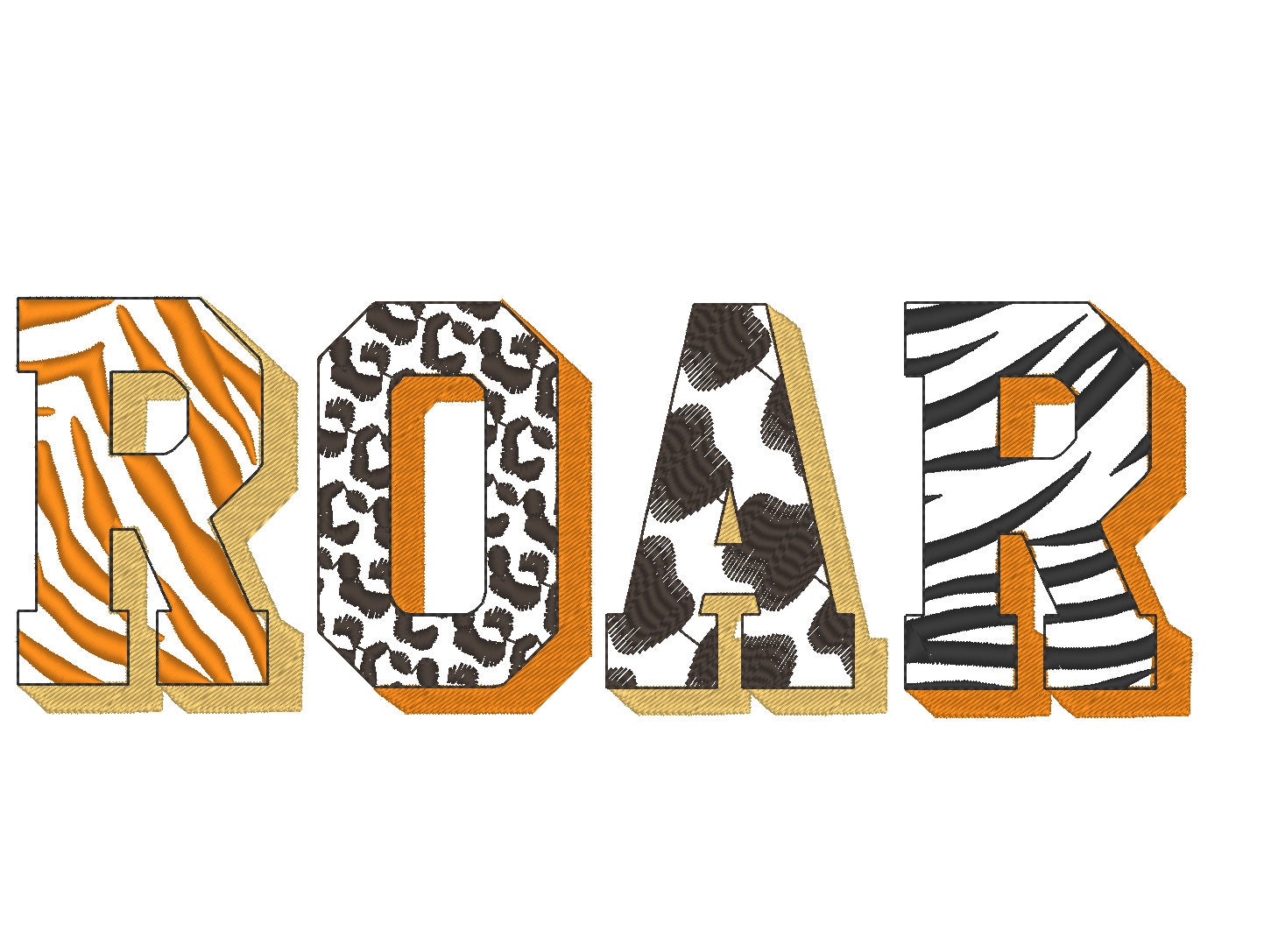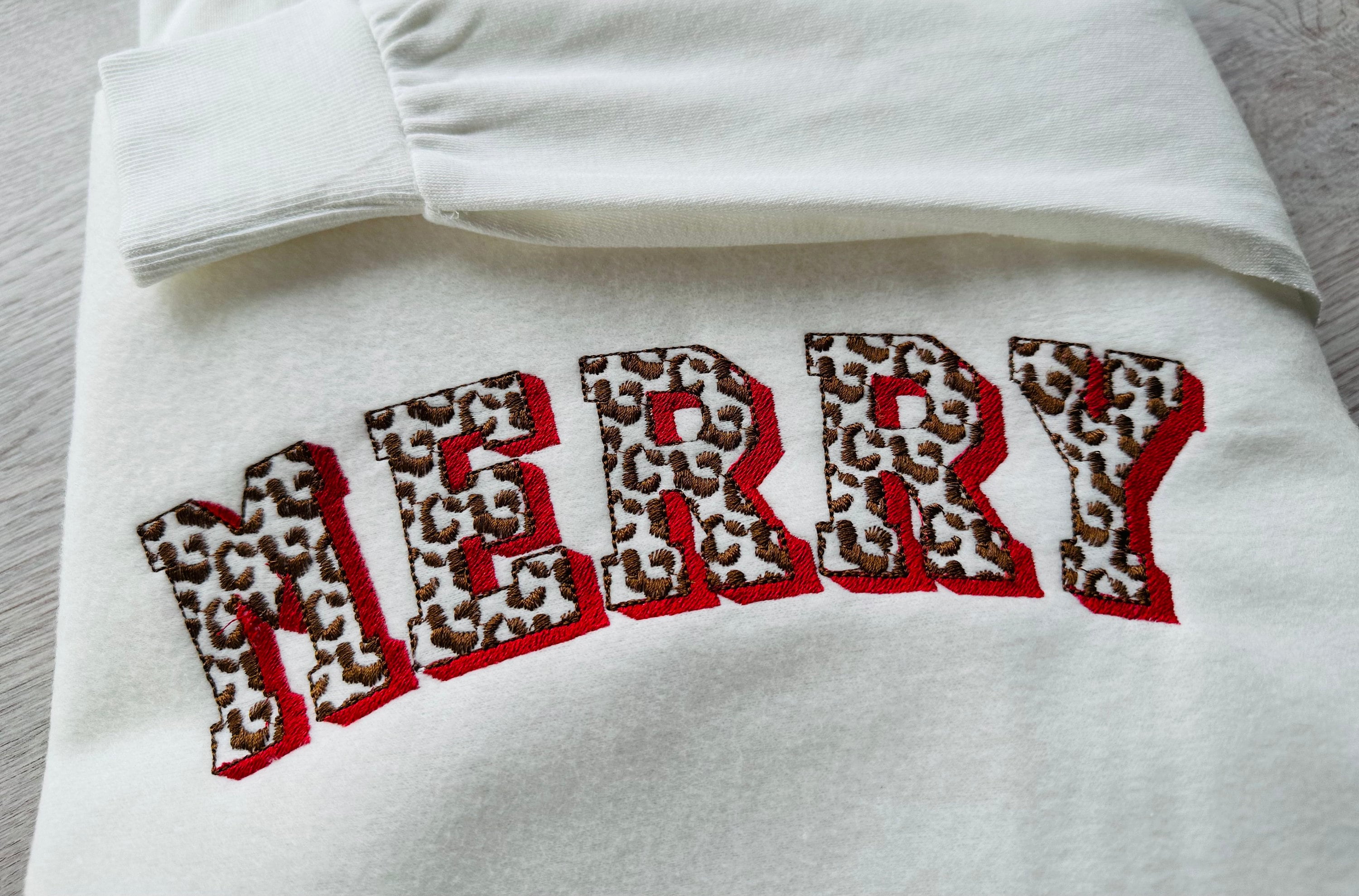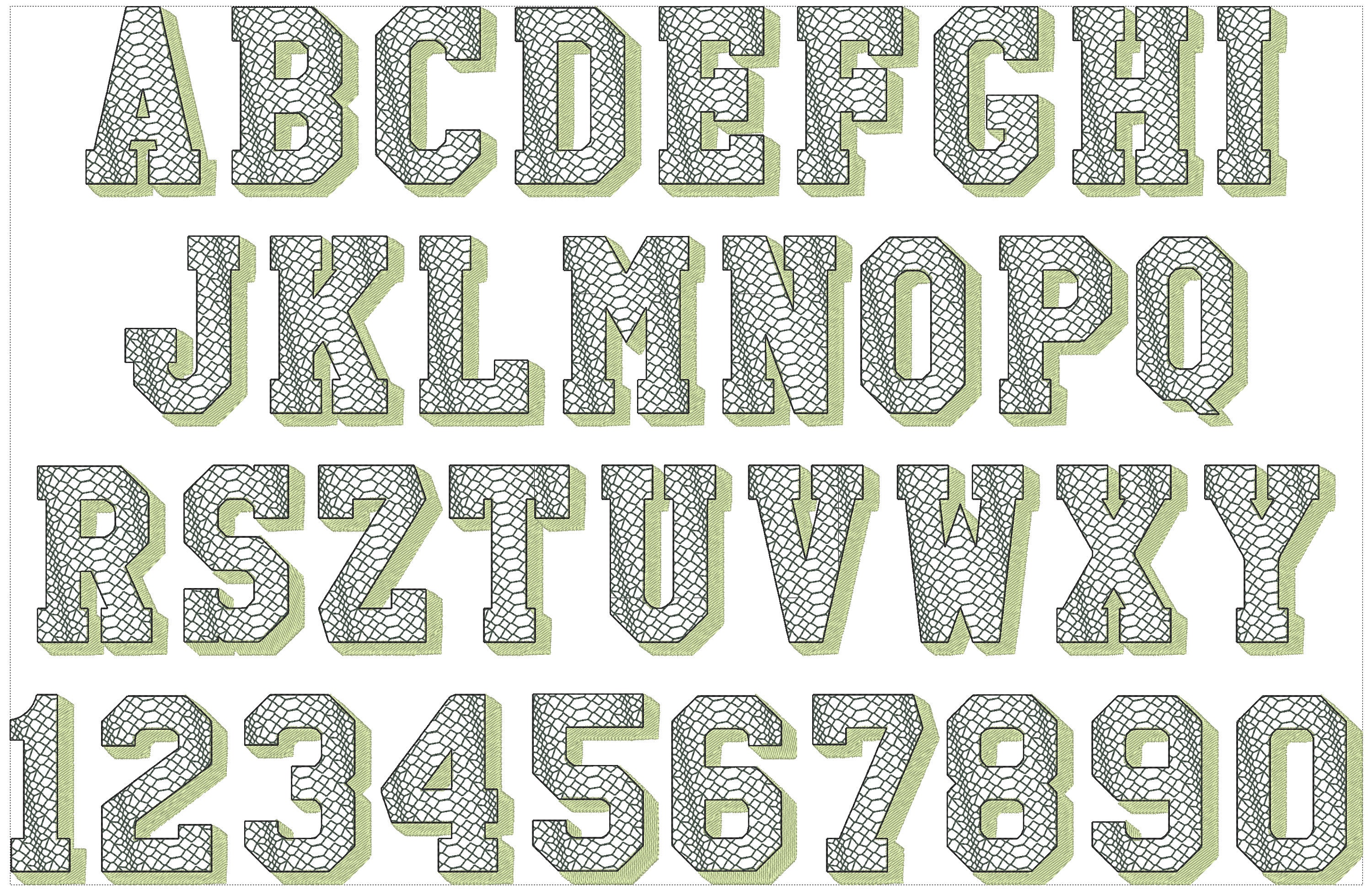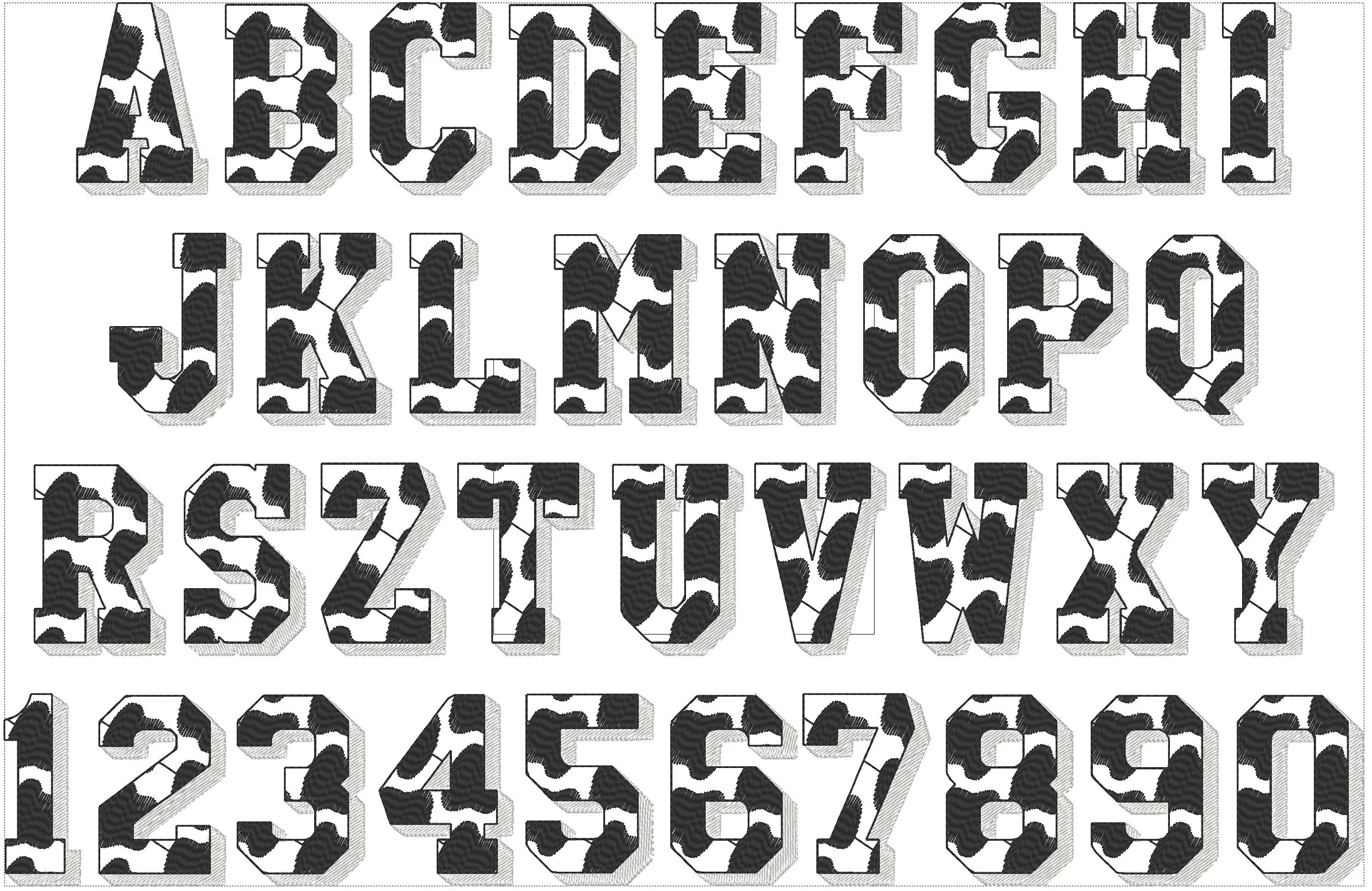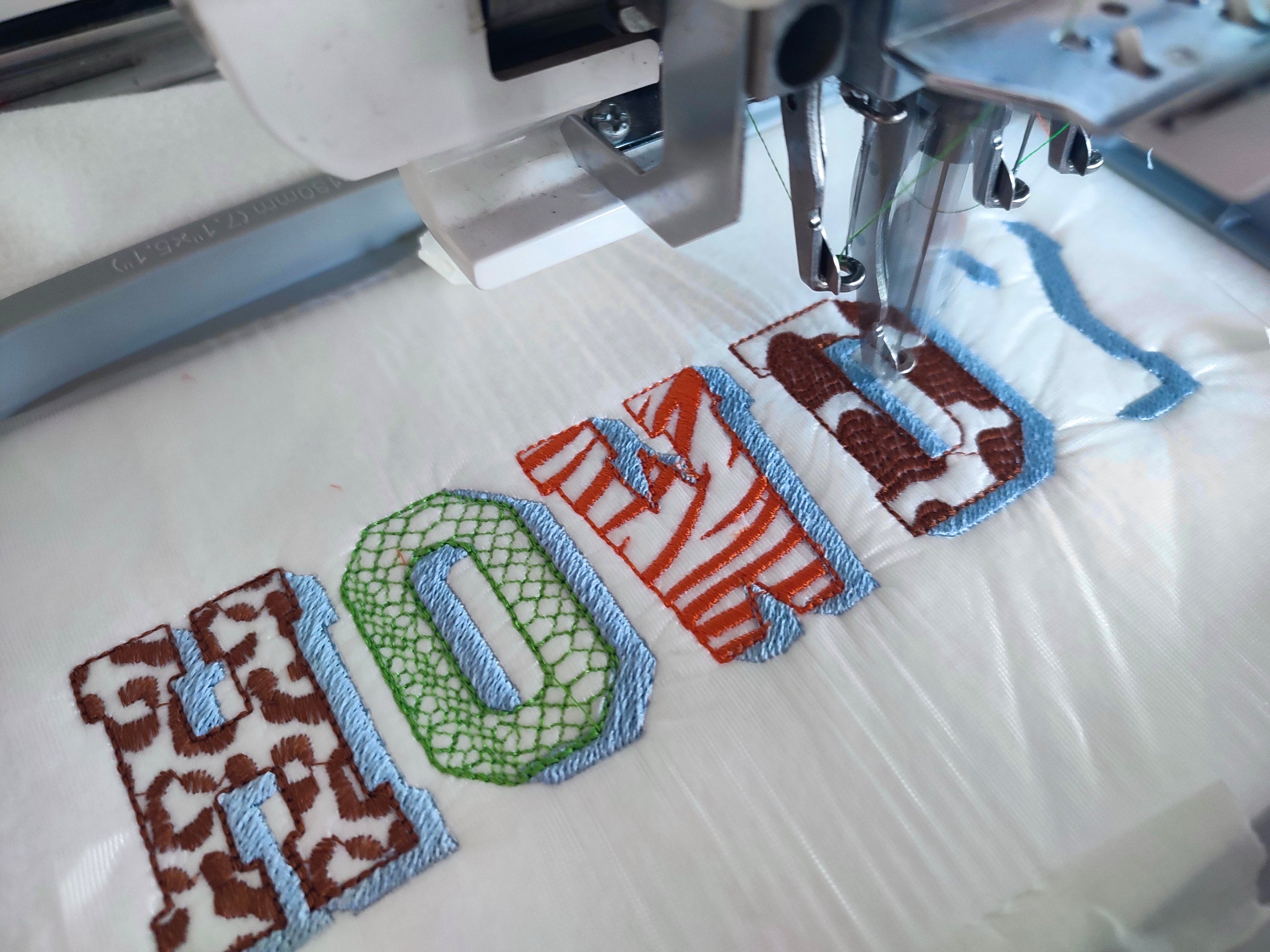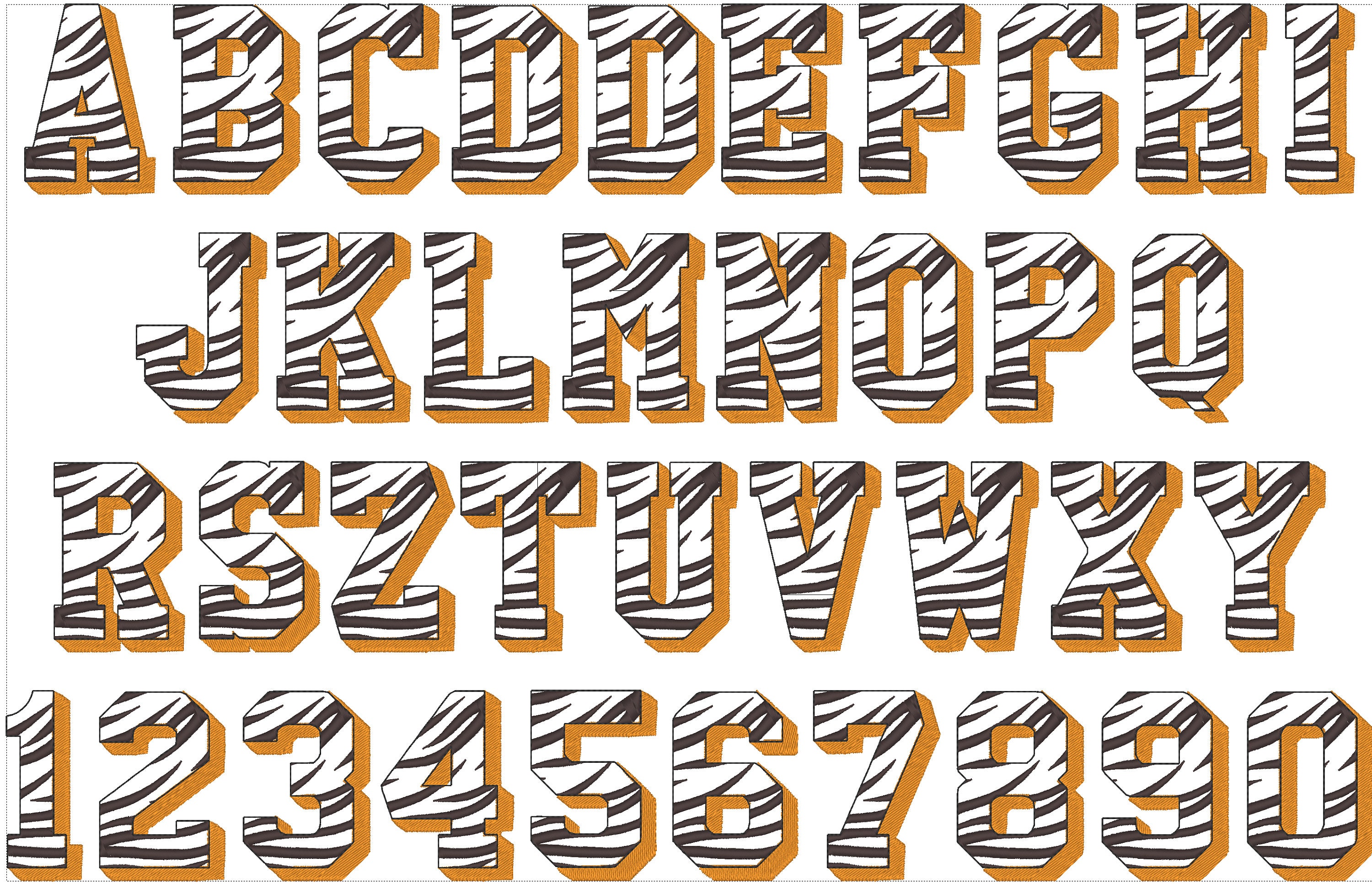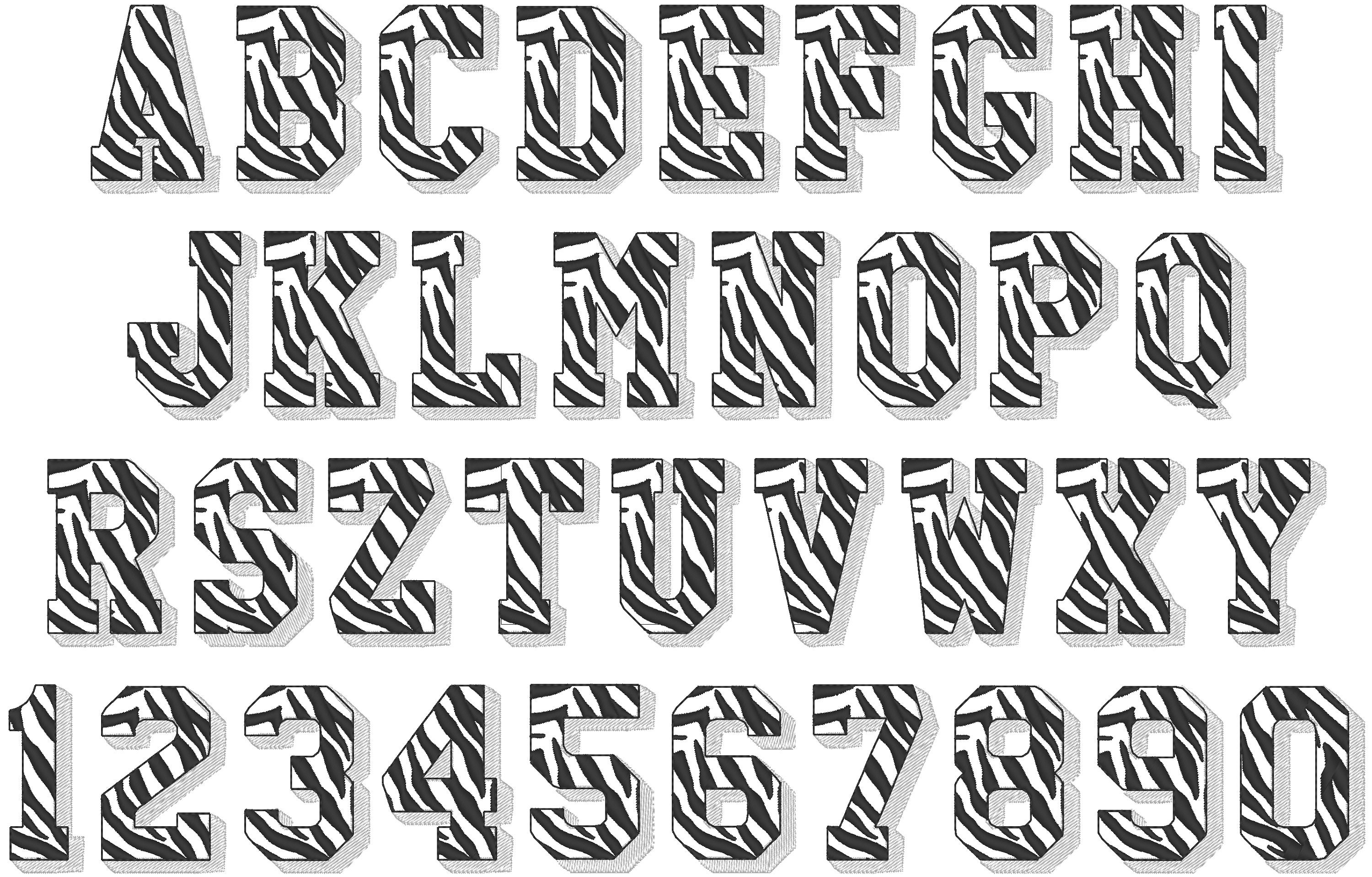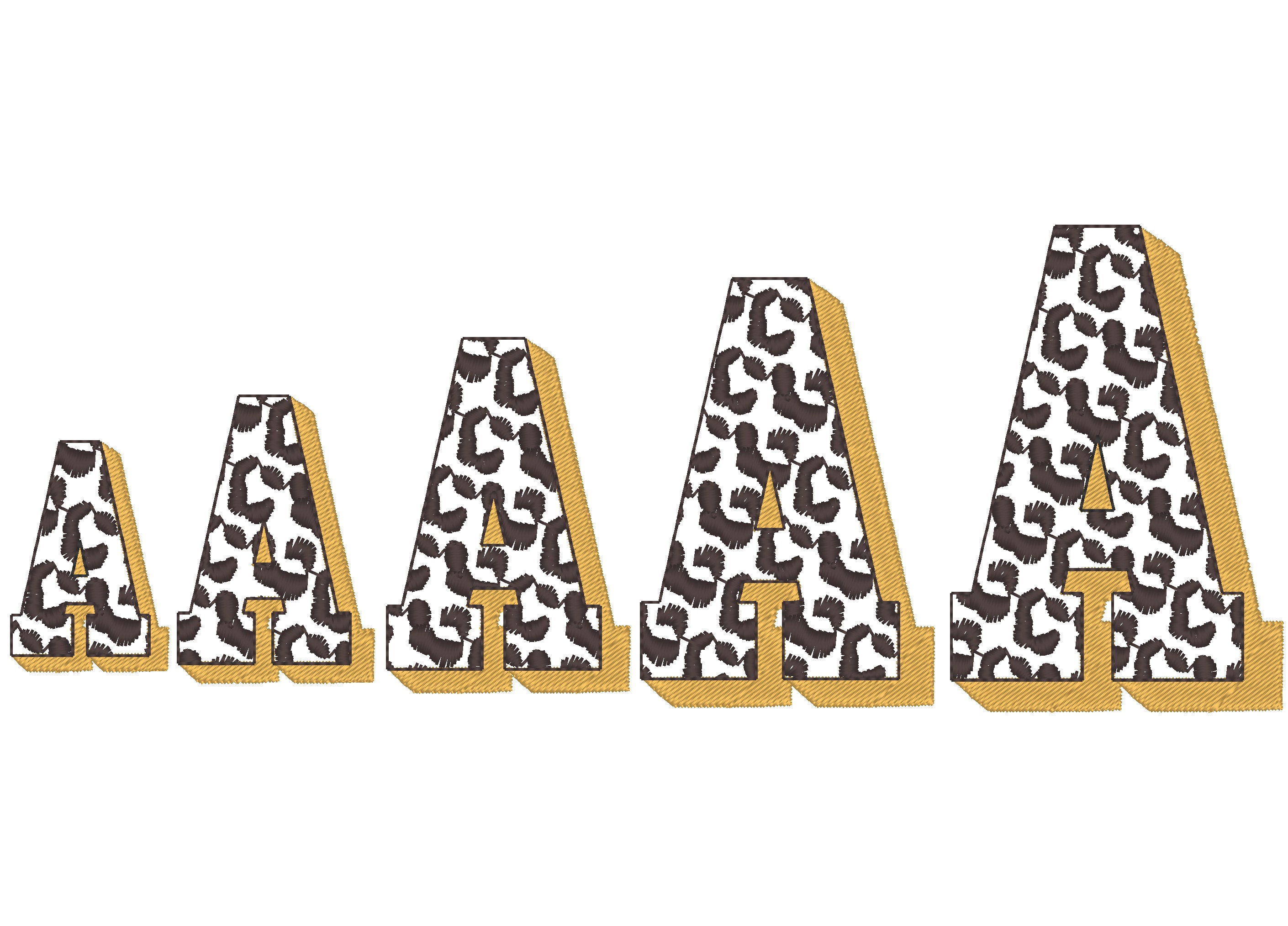
Wild Animal print fonts SET of 5 Patterned Font tiger zebra leopard crocodile cheetah cows spots letters numbers machine embroidery designs
Included are five fonts:
Cow spots font
Tiger stripes font
Leopard spots font
Zebra font
Crocodile font
The fonts are transparent and have fill stitch or satin stitch pattern inside, fill stitch shadow, and a light bean stitch outline.
Each font contains uppercase A-Z and numbers 0-9.
Merge and combine the letters and numbers as you wish. Use different sizes and colors, just play and get awesome results!